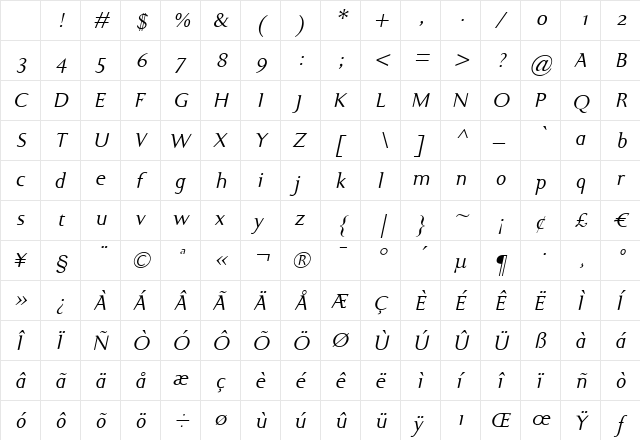
Complete Ela Demiserif Regular Italic glyph index. Displaying only characters natively supported by Ela Demiserif Regular Italic font.
Ela Demiserif carries the refined structure of traditional serif typography, with bracketed terminals and considered proportions that communicate credibility and craft. The slanted form adds forward momentum and visual energy.
Pro Tip: Use Ela Demiserif for editorial body copy and considered headline work. Pair with a neutral sans for UI elements or captions to create a classic hierarchy.
Who designed the Ela Demiserif Regular Italic font?